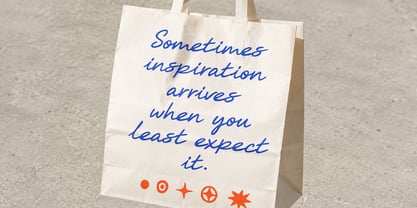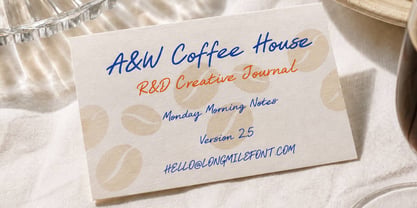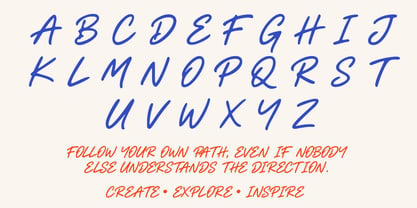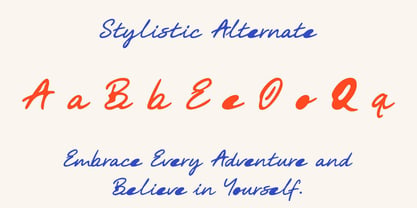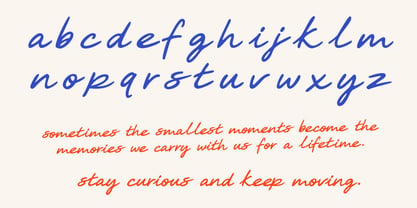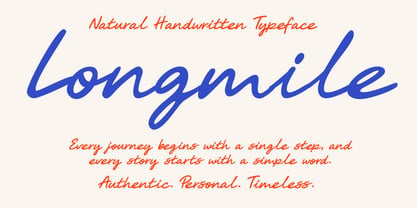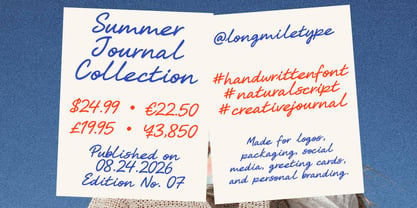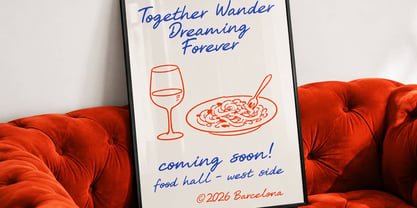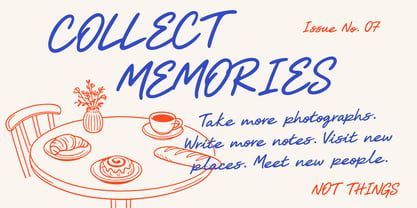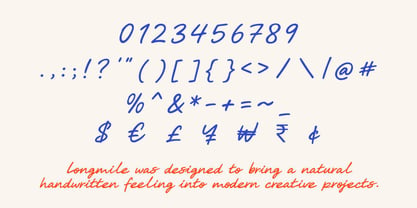
Longmile Font
The Longmile Font Font Family was designed by Zaki Muhammad and published by madjack.font. Longmile Font contains 1 styles. More about this family
Longmile is a natural handwritten typeface inspired by authentic handwriting and personal signatures. Featuring smooth, flowing strokes, elegant curves, and a relaxed handwriting style, this font conveys a warm, friendly, and timeless character. Perfect for branding, logos, packaging, invitations, social media posts, quotes, and creative projects, Longmile adds an authentic, human touch while maintaining a clean and sophisticated look. Its natural charm makes every design feel personal, expressive, and memorable.